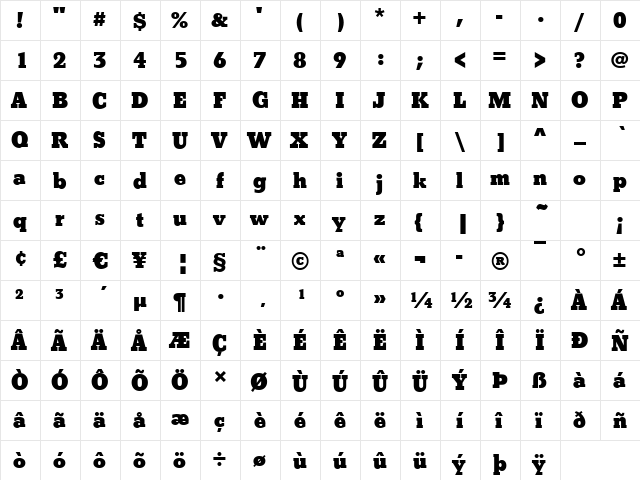
Boston-Xbold Regular
Design Context for Boston-Xbold Typeface
Boston-Xbold is a composed and adaptable typeface that performs quietly and consistently across a wide range of design contexts. The heavy weight commands attention and anchors typographic hierarchies.
Pro Tip: Pair Boston-Xbold with a font of contrasting weight or personality to build a more expressive typographic hierarchy.